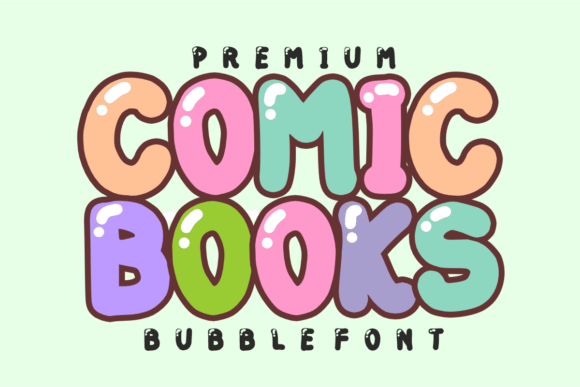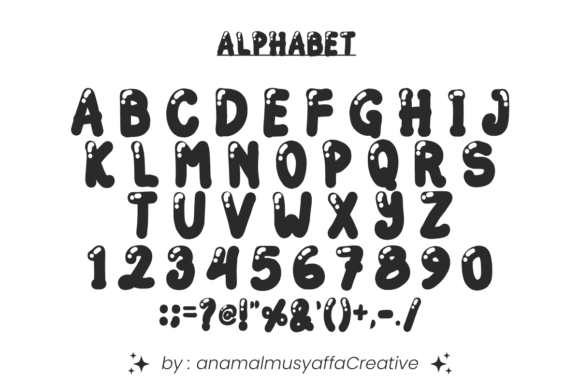
Introducing Comic Bubble Font: The Ultimate Playful Typeface for Cheerful Designs
Are you looking for a font that can add a dash of fun and playfulness to your designs? Look no further than Comic Bubble Font, a sweet and charming bubble font that’s perfect for creating lighthearted and engaging visual communications. In this article, we’ll dive into the world of Comic Bubble Font, exploring its features, benefits, and uses, and why it’s a must-have for designers and crafters.
The Design Behind Comic Bubble Font
Comic Bubble Font is a masterclass in soft, rounded design, with chunky, pillow-like letterforms that are perfectly suited for creating cheerful and high-impact designs. The font’s defining characteristic is its smooth, rounded edges, which give it an incredibly friendly and approachable look. The glossy, reflective effect and multi-colored fills enhance its bubbly, three-dimensional quality, making it a standout in any design.
The Perfect Font for Playful Designs
Comic Bubble Font is the perfect execution of the classic bubble style, making it ideal for a wide range of playful designs. Whether you’re creating children’s birthday invitations, candy and dessert packaging, comic book sound effects, sweet social media posts, or kindergarten branding, this font is sure to bring a smile to your audience’s face. Its uniqueness lies in its ability to instantly inject a dose of soft, bright, and utterly delightful personality into any creative project.
Key Features of Comic Bubble Font
- Chunky, pillow-like letterforms: Perfectly suited for creating cheerful and high-impact designs.
- Smooth, rounded edges: Give the font an incredibly friendly and approachable look.
- Glossy, reflective effect: Enhances the font’s bubbly, three-dimensional quality.
- Multi-colored fills: Add to the font’s playful and cheerful personality.
- Highly versatile: Suitable for a wide range of designs, from children’s invitations to social media posts.
Why Designers and Crafters Love Comic Bubble Font
Comic Bubble Font is a joyful and highly versatile font that’s perfect for designers and crafters who want to add a touch of playfulness to their designs. Whether you’re creating digital content or physical products, this font is sure to delight your audience. Its soft, bright, and cheerful personality makes it perfect for designs that need to appeal to a younger audience, such as children’s products or kindergarten branding.
Tips for Using Comic Bubble Font
- Use it for headings and titles: Comic Bubble Font is perfect for creating eye-catching headings and titles that grab attention.
- Pair it with bold colors: The font’s playful personality is enhanced when paired with bright and bold colors.
- Experiment with different sizes: The font’s chunky letterforms look great in a variety of sizes, from large headings to smaller text.
- Use it consistently: Use Comic Bubble Font consistently throughout your design to create a cohesive and playful look.
Comic Bubble Font is a sweet and playful bubble font that’s perfect for designers and crafters who want to add a touch of fun and playfulness to their designs. With its chunky, pillow-like letterforms, smooth rounded edges, and glossy reflective effect, this font is sure to delight your audience. Whether you’re creating children’s birthday invitations, candy and dessert packaging, or social media posts, Comic Bubble Font is a must-have for any creative project.